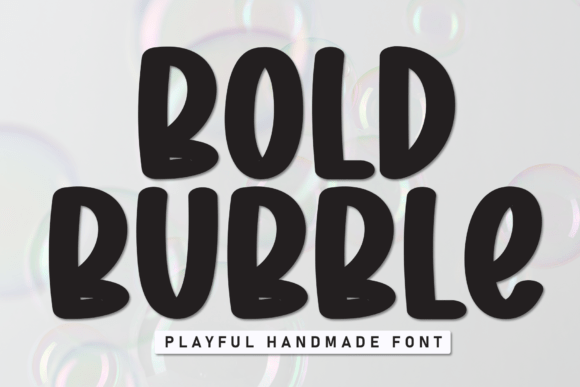
As a designer, have you ever been stuck trying to find the perfect font to convey the tone and personality of your brand? You’ve browsed through countless options, but none seem to capture the essence of your vision. This is where the Bold Bubble Font comes in – a game-changing addition to any design arsenal.
This casual and neat display font is designed to add a warm and inviting touch to your designs, making it ideal for branding, headlines, packaging, and digital content. With its clean lines, balanced letterforms, and subtle rounded edges, the Bold Bubble Font delivers clarity and charm in equal measure. Whether you’re a seasoned designer or just starting out, this versatile font is sure to become a trusted companion in your creative journey.
Bold Bubble Font Key Features
- Unique Characteristics: The Bold Bubble Font features a distinctive, playful bubble-like design, with rounded edges and a bold, eye-catching appearance.
Bold Bubble Font Review
When I first laid eyes on the Bold Bubble Font, I was immediately drawn to its playful and energetic vibe ✨. The bold, rounded edges and bubbly details give it a fun and youthful feel that’s perfect for projects that need a touch of whimsy. I also appreciate the font’s versatility – it can work just as well for children’s book illustrations as it can for social media graphics.
However, there are a few limitations to consider ⚠️. One of the main issues I have is with the font’s legibility at smaller sizes. While it’s great for large, eye-catching headings, it can become difficult to read when used in body text. Additionally, the font’s uniqueness can sometimes make it feel overused or clichéd – it’s a risk you’ll need to weigh against the benefits of its distinctive style.
In terms of overall impression, I’d say the Bold Bubble Font is a great addition to any designer’s toolkit, but it’s essential to use it thoughtfully and in context. With the right project and design approach, it can add a lot of visual interest and personality to your work.
Key Points:
- ✨ Fun and playful vibe
- ✨ Versatile and suitable for various projects
- ⚠️ Limited legibility at smaller sizes
- ⚠️ Risk of overuse or clichéd feel
Practical Application Guide for Bold Bubble Font
Tip: Use Bold Bubble Font for headings and titles to add a playful touch to your design.
Tip: Experiment with different font sizes and colors to create a unique look.
Tip: Use Bold Bubble Font for headings and titles to add a professional touch to your presentation or document.
Bold Bubble Font is perfect for:
- Creating eye-catching social media posts and ads.
- Designing playful and fun presentations.
- Adding a touch of personality to your website or blog.
Remember to use Bold Bubble Font sparingly to avoid overwhelming your design.
Alternatives to Bold Bubble Font
Akzidenz-Grotesk
Akzidenz-Grotesk is a sans-serif font that was popular in the early 20th century. It has a geometric feel and is often used for titles and headings. Akzidenz-Grotesk is a great alternative to Bold Bubble Font for designers who want a more modern and sleek look.
Comparison: Akzidenz-Grotesk is more geometric and modern compared to Bold Bubble Font’s more playful and whimsical feel.